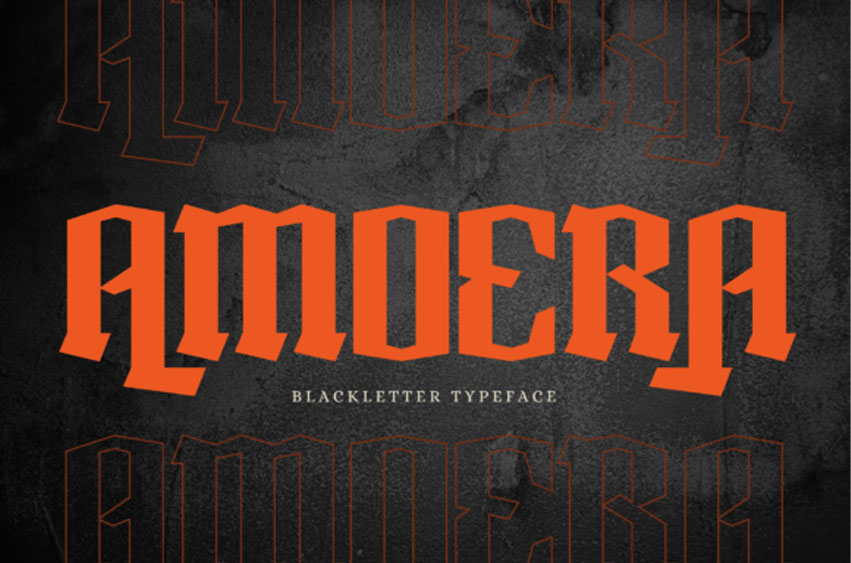
Amoera Font is a simple yet modern Gothic font inspired by classic medieval script. Known for its dramatic and ornate look, it features sharp, angular lines and rich, dark strokes that convey a sense of history and tradition.
This typeface brings beautiful typographic harmony to a range of design projects, including logos, branding, social media posts, advertisements, and product designs.